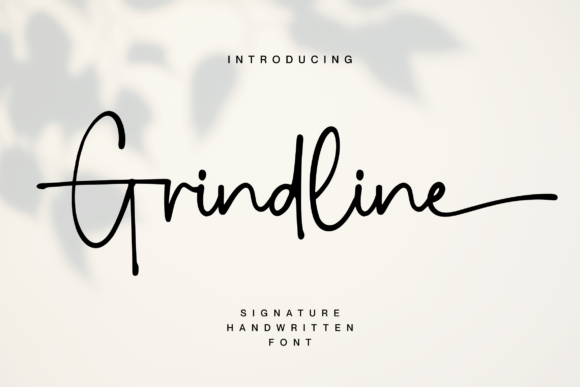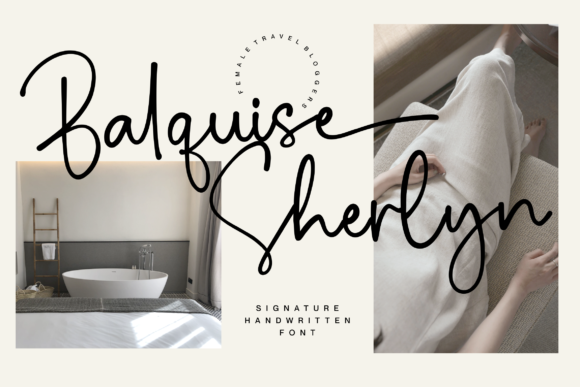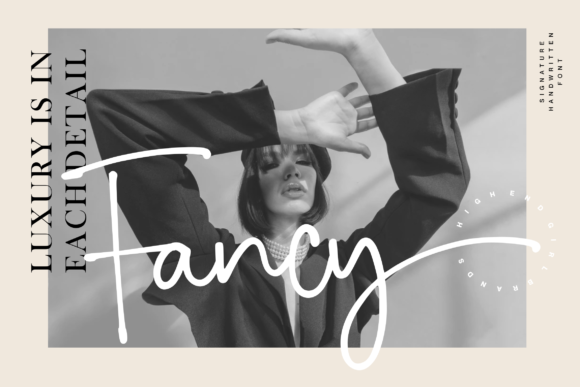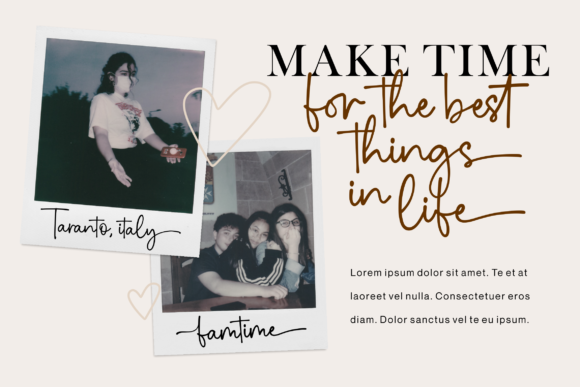
Grindline Font: Elegant Signature Script for Modern Branding & DIY
About the Grindline Font
Introducing the Grindline Font, a beautifully crafted typeface designed to elevate your creative projects. Grindline is a lovely script font featuring charming, playful characters that seem to dance along the baseline. Add this font to your most creative ideas, and notice how it makes them stand out! Grindline is PUA encoded which means you can access all of the glyphs and swashes with ease!
Grindline’s playful energy makes it ideal for projects requiring a touch of whimsy, such as branding for children’s products, invitations, or short headlines. It excels in situations where legibility isn’t paramount, for example, on packaging or logos where the name is prominent. However, avoid using it for body text or lengthy paragraphs; its script nature compromises readability in extended blocks of text. Consider using it sparingly within a larger design.
Its charming, yet slightly informal, style pairs well with clean sans-serif fonts like Montserrat or Open Sans for a balanced contrast. For a more sophisticated feel, consider pairing it with a classic serif like Garamond or a geometric sans-serif such as Futura. These pairings ground the playful script, providing a solid visual counterpoint.
Grindline’s overall personality is best described as friendly and approachable, with a touch of vintage charm. It’s not suitable for projects demanding a serious or corporate aesthetic.
Grindline Font Usage Examples
Grindline Font Example